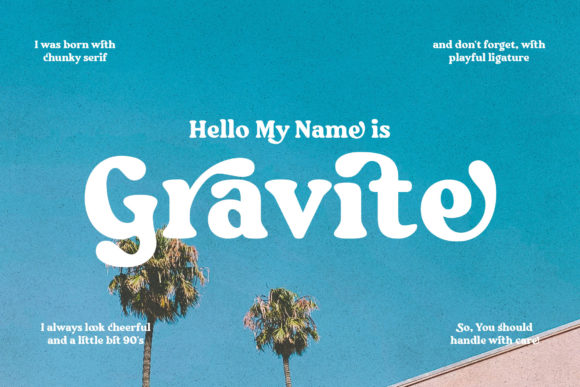
Introducing Gravite Font: A Bold and Playful Typeface for 90’s Inspired Designs
The Gravite Font is a modern typeface that has been making waves in the design community. You may already be familiar with this style, which is often found in marketplaces. However, Gravite has a unique character that sets it apart from other fonts. Its bold weight, playful ligature, and alternate swashes make it an ideal choice for design projects with a 90’s vibe.
Key Features of Gravite Font
- Bold Weight: Gravite Font has a strong and bold character that makes it perfect for use on magazine covers, editorial designs, and logo concepts.
- Playful Ligature: The font features playful ligatures that add a touch of whimsy to your designs.
- Alternate Swashes: Gravite Font comes with additional swashes that provide you with more creative options for your designs.
Ideal Design Applications for Gravite Font
Gravite’s strong character makes it suitable for use in a variety of design projects, including:
- Magazine Covers: The font’s bold weight and playful ligature make it perfect for creating eye-catching magazine covers.
- Editorial Designs: Gravite Font is ideal for use in editorial designs, such as articles, blog posts, and other written content.
- Logo Concepts: The font’s unique character makes it a great choice for logo concepts that require a bold and playful touch.
- Advertising: Gravite Font can be used in advertising materials, such as billboards, posters, and flyers.
- Packaging: The font is suitable for use on product packaging, adding a touch of personality to your brand.
- 90’s Style Layouts: Gravite Font is perfect for creating designs with a 90’s vibe, including retro-inspired posters, flyers, and brochures.
Benefits of Using Gravite Font
There are several benefits to using Gravite Font in your design projects:
- Unique Character: The font’s bold weight and playful ligature give it a unique character that sets it apart from other fonts.
- Versatility: Gravite Font can be used in a variety of design projects, from magazine covers to logo concepts.
Tips and Tricks for Using Gravite Font
Here are some tips and tricks for getting the most out of Gravite Font:
- Experiment with Different Sizes: Try using Gravite Font in different sizes to see how it looks in various contexts.
- Play with Ligatures: Experiment with the font’s ligatures to add a touch of whimsy to your designs.
- Use Swashes: Use the font’s swashes to add a touch of elegance to your designs.
- Mix and Match: Try mixing and matching Gravite Font with other fonts to create a unique look.
Gravite Font is a bold and playful typeface that is perfect for design projects with a 90’s vibe. Its unique character, versatility, and ease of use make it an ideal choice for designers. Whether you’re creating magazine covers, editorial designs, logo concepts, or advertising materials, Gravite Font is a great choice. With its PUA encoding, you can easily access all the amazing glyphs and ligatures, making it a great addition to your font collection.